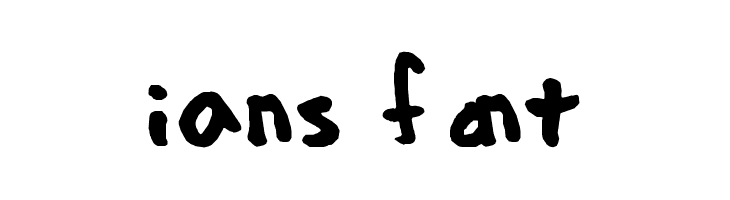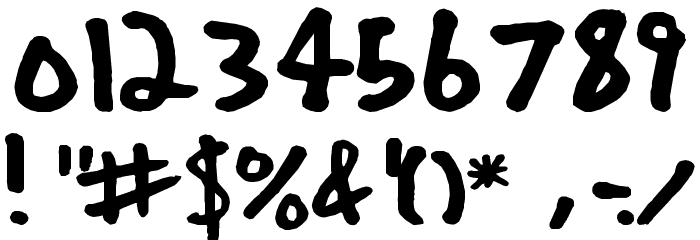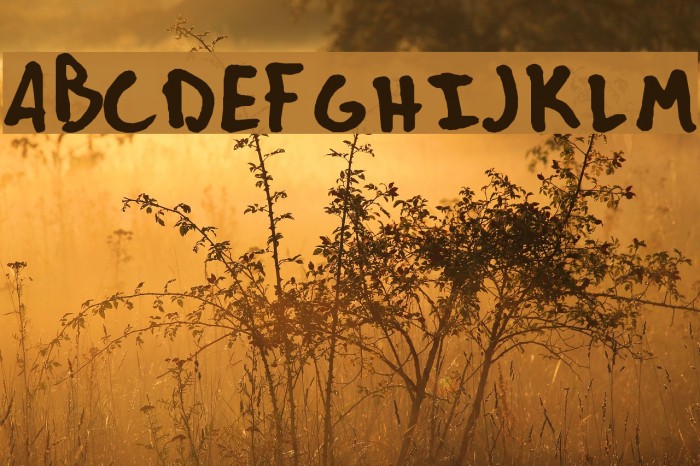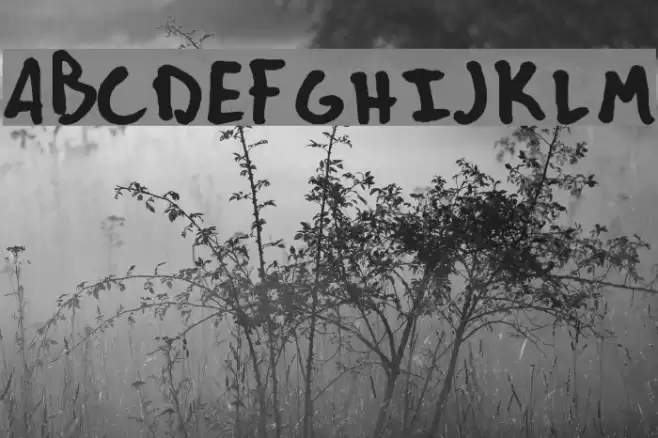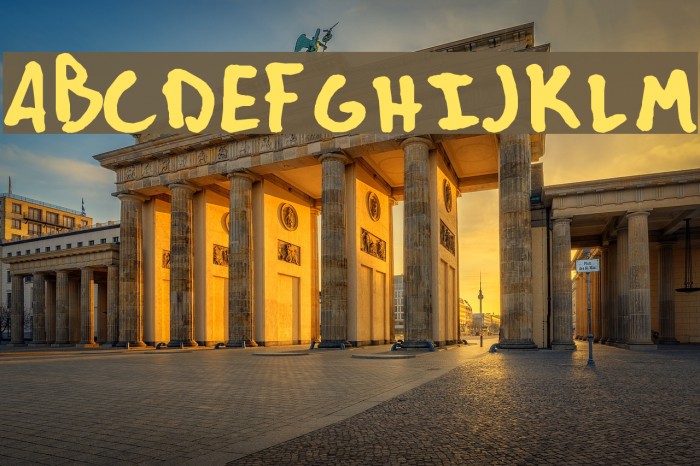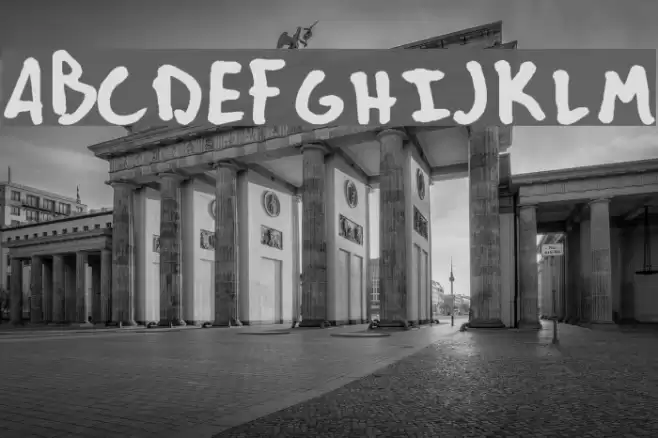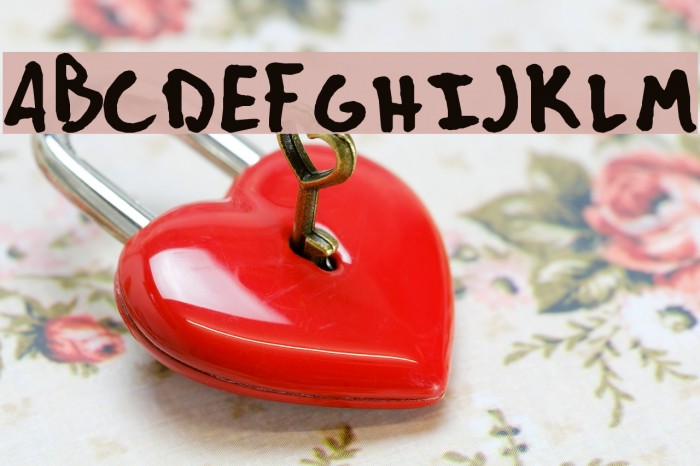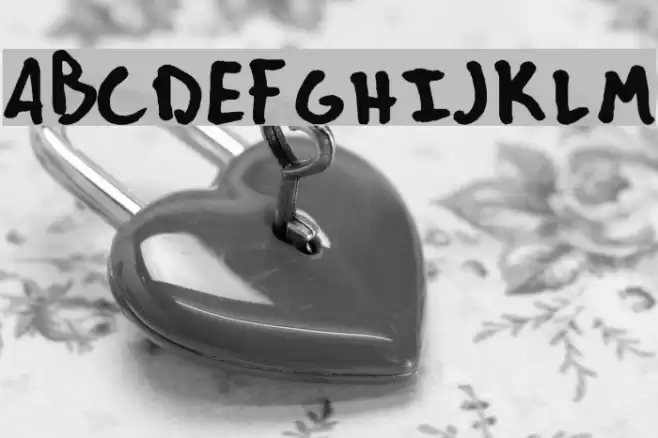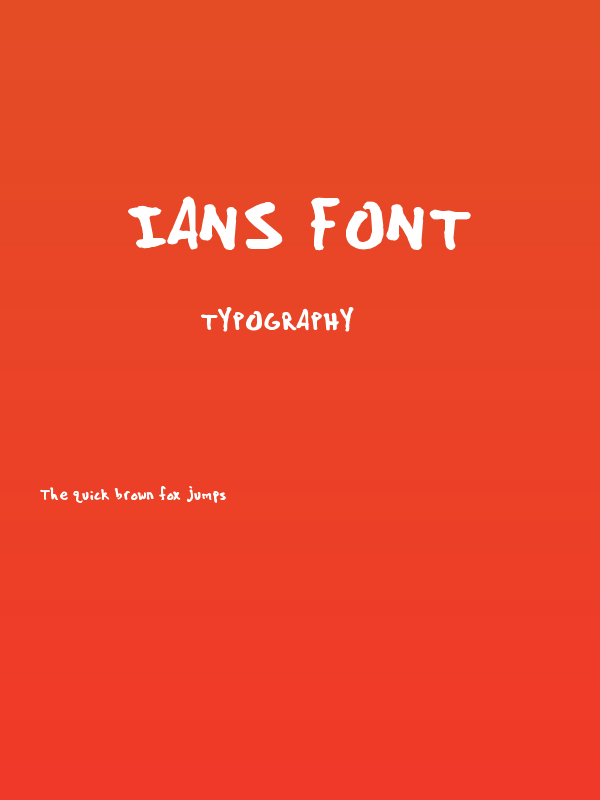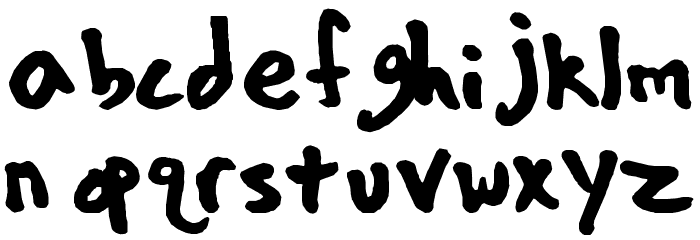
ians font Font
ians font Description
This font exhibits a playful and informal handwritten style, characterized by its bold and uneven strokes. The letters are slightly irregular, giving it a casual and spontaneous feel. The uppercase and lowercase letters maintain a consistent style, with rounded edges and a slightly tilted appearance. Numbers and special characters follow the same informal aesthetic, making the font suitable for creative and fun projects. The overall look is dynamic and energetic, perfect for conveying a sense of individuality and creativity.
| Overall Style | Playful, Informal |
| Use Case | Headlines, Posters, Creative projects |
| Proposed Projects | Ideal for children's books, greeting cards, posters, and creative branding. |